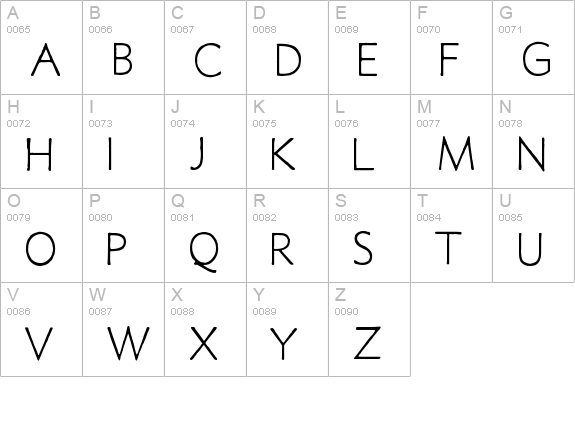
Metro Thin HPLHS is a delicate, low-contrast variant in the Metro typeface family \xE2\x80\x94 well suited to fashion editorial, minimal branding, and high-contrast display.
Metro Thin HPLHS font is a sleek and modern typeface designed for elegant and sophisticated projects. Its clean lines and minimalistic style make it perfect for creating a contemporary and professional look. This font is versatile and can be used for a variety of design projects including branding, advertising, and editorial design. What sets Metro Thin HPLHS font apart is its unique character shapes and strong visual impact. The thin strokes and tall x-height give it a modern and refined appearance, making it stand out from other typefaces. Whether you are designing a logo, website, or print materials, Metro Thin HPLHS font will add a touch of elegance and sophistication to your project. Best of all, this font is available for free download at FontsMarket.com. So you can easily access and use it in your design projects without any hassle. Don't miss out on the opportunity to enhance your designs with the stylish and contemporary Metro Thin HPLHS font. Download it now and elevate your typography game!